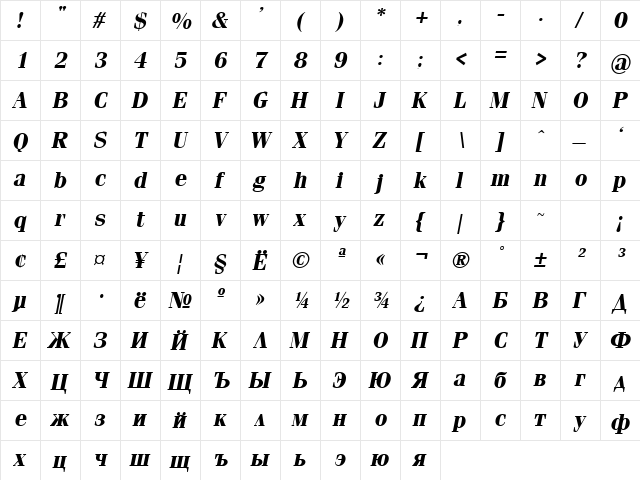
Simeiz Bold
Design Context for Simeiz Typeface
Simeiz offers clean, dependable letterforms without strong stylistic allegiance, making it a practical choice for designers who need flexibility. The heavy weight commands attention and anchors typographic hierarchies.